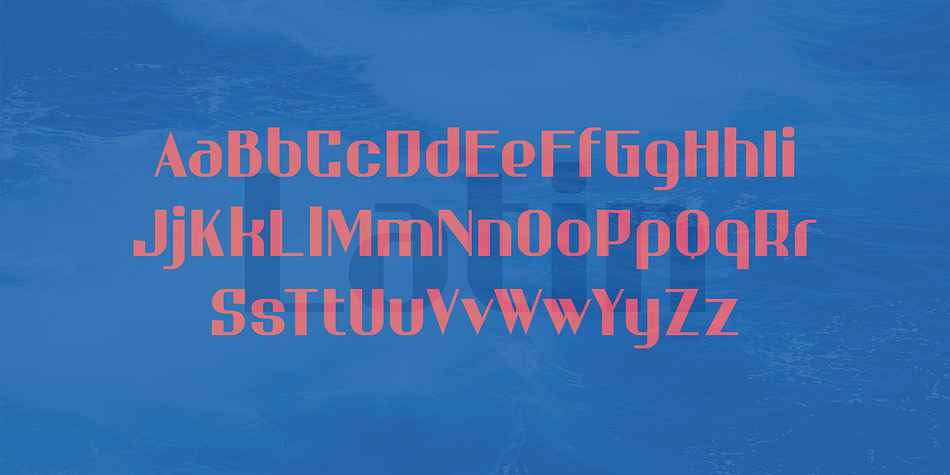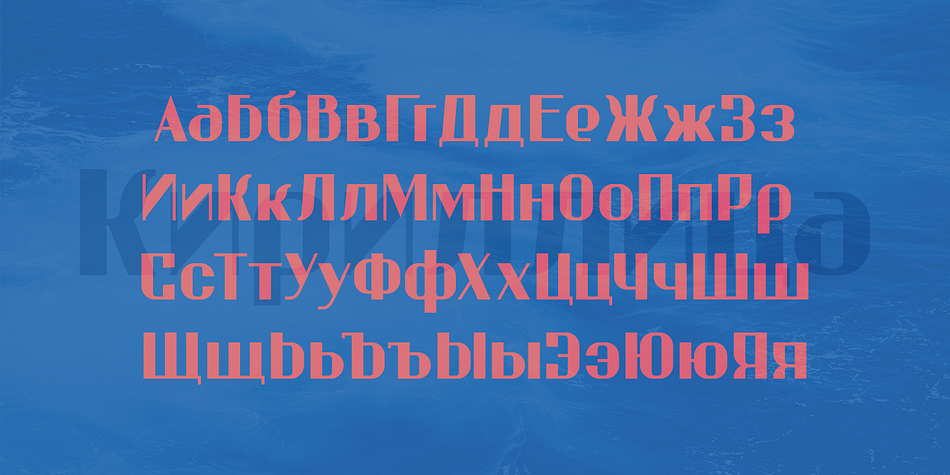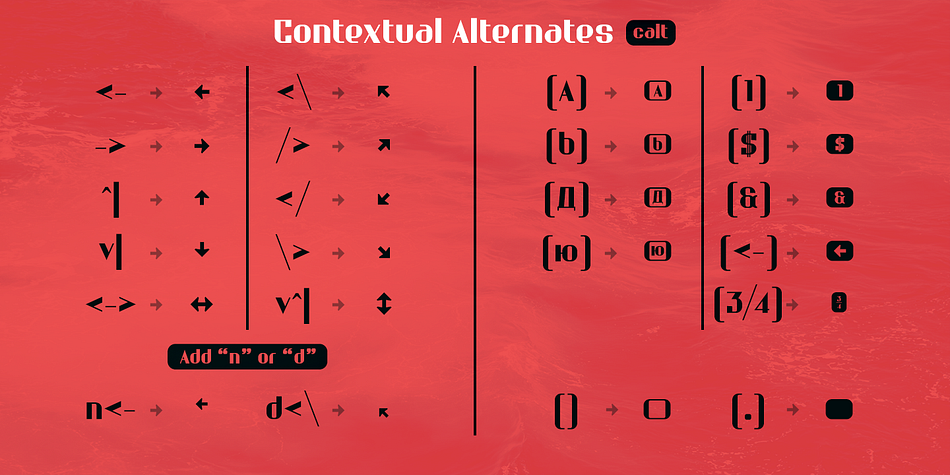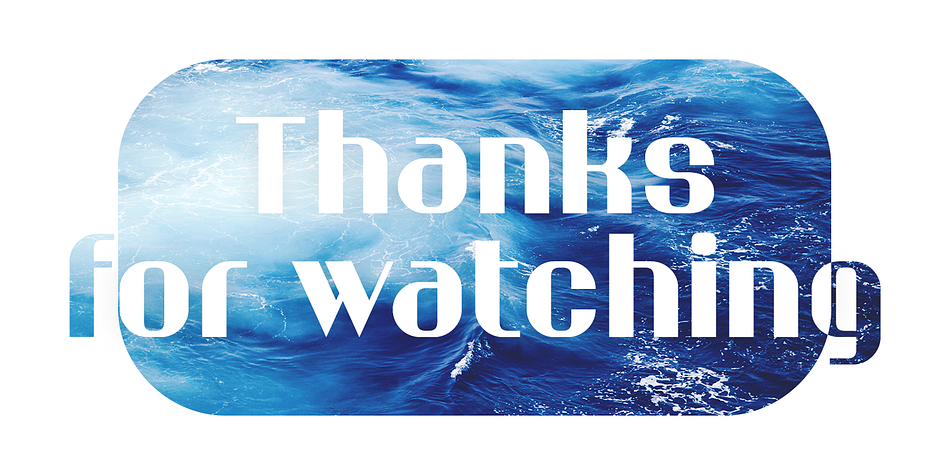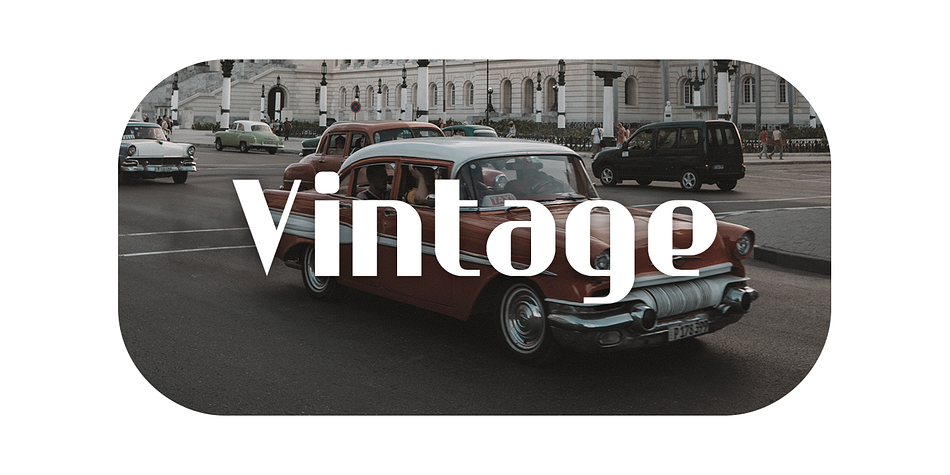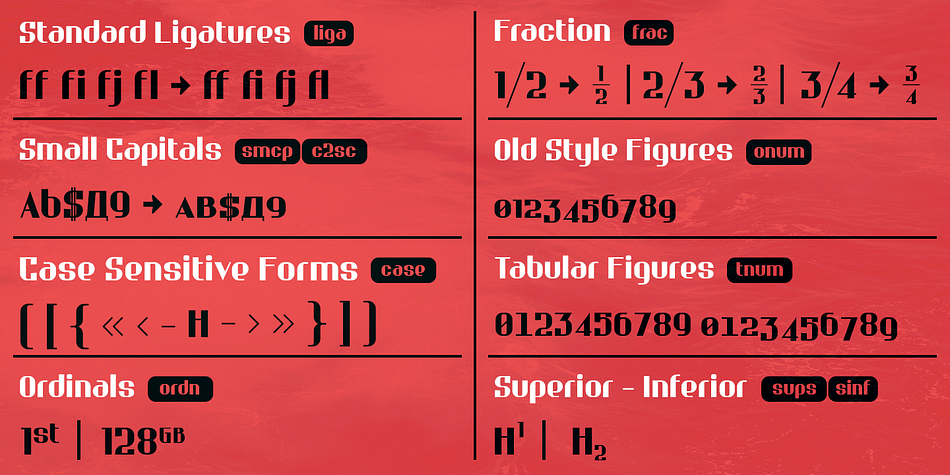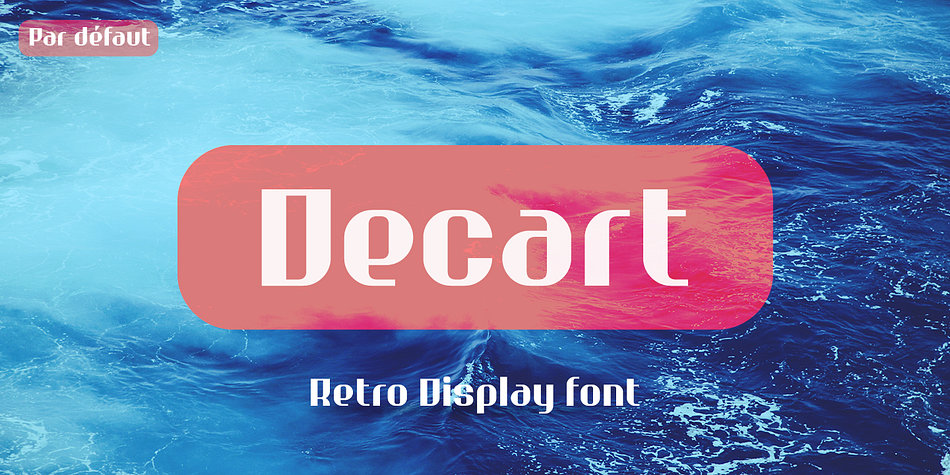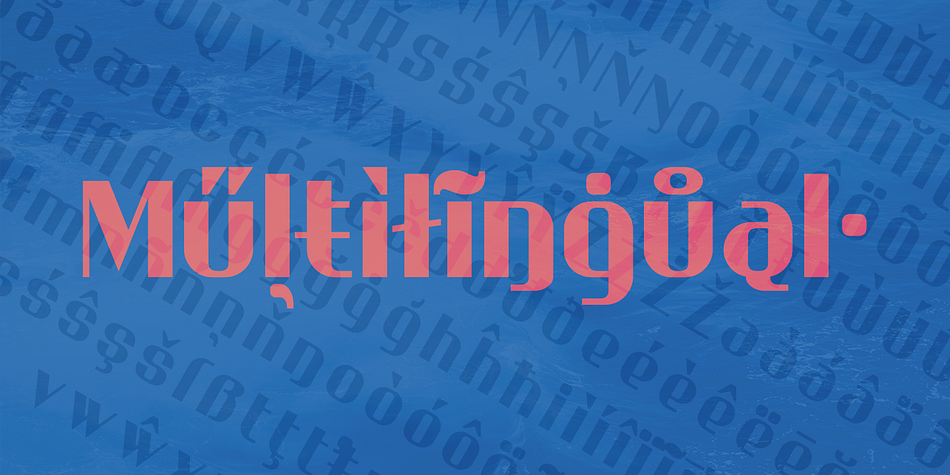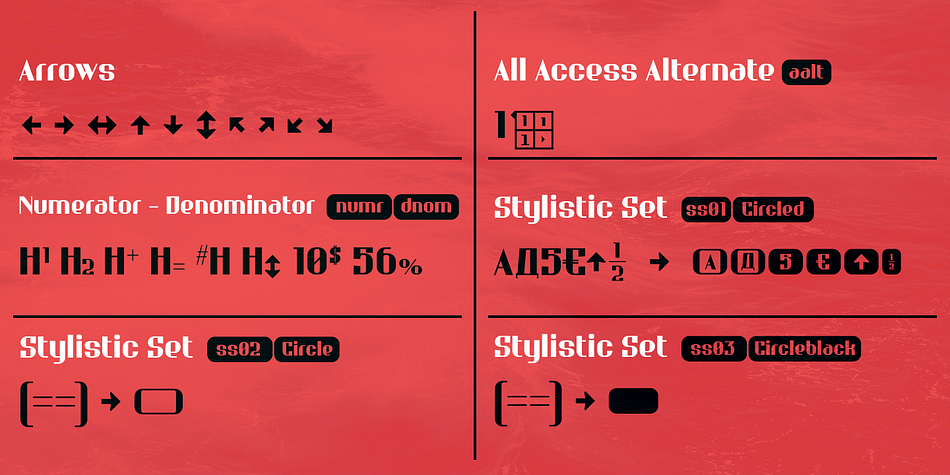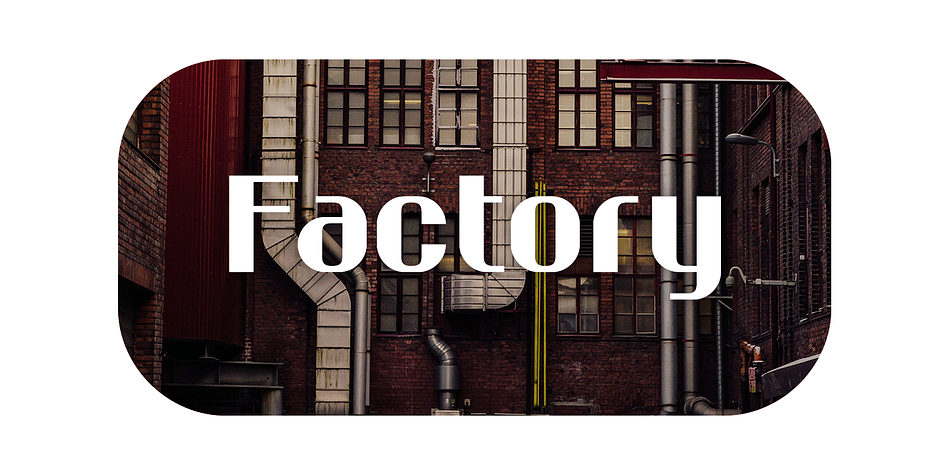
Decart
Decart is an art deco font family published by Par Défaut.
Decart is retro display font inspired by “Art Deco” style with more than 1100 characters,
covering many languages using latin and cyrillic alphabet.
The font also has 15 OpenType features :
(All access Alternative (aalt) - Contextual Alternates (calt) - Fraction (frac) - Numerator (numr) - Denominator (dnom) - Superior (sups) - Inferior (sinf) - Tabular Figure (tnum) - Old Style (onum) - Ordinals (ordn) - Small Capital (smcp) - Small Capital From Capital (c2sc) - Case Sensitive Forms (case) - Stylistic Set (ss01 - ss02 - ss03) and Kerning (kern).
Foundry Par Défaut
Style Art Deco